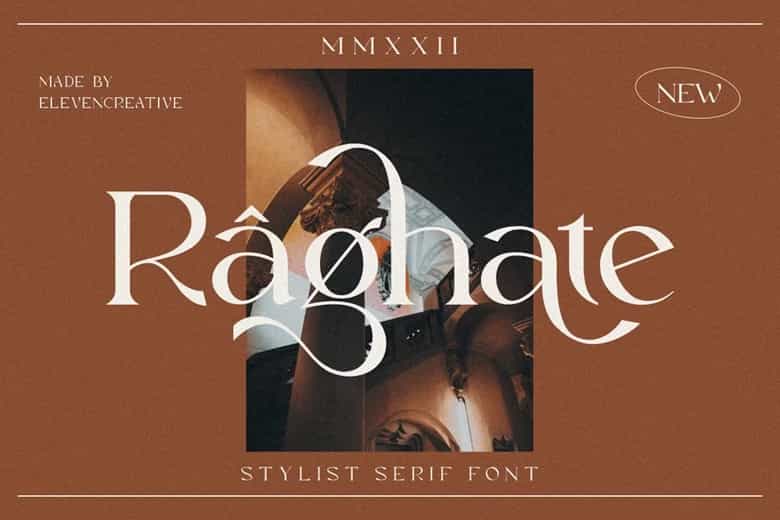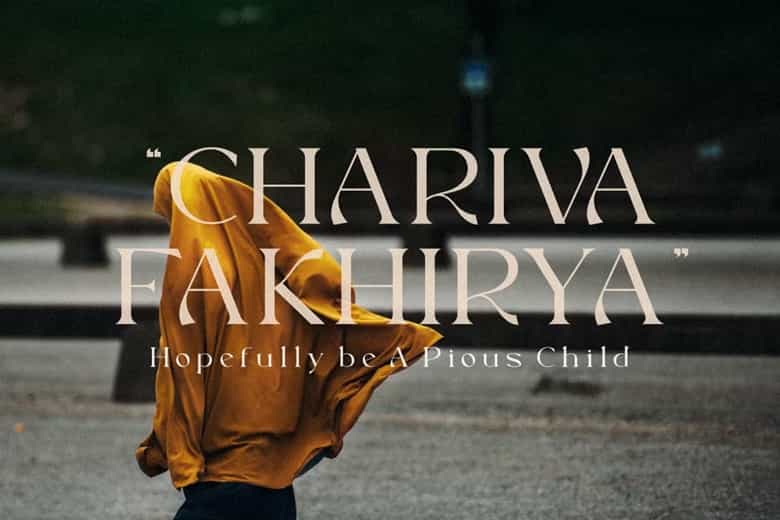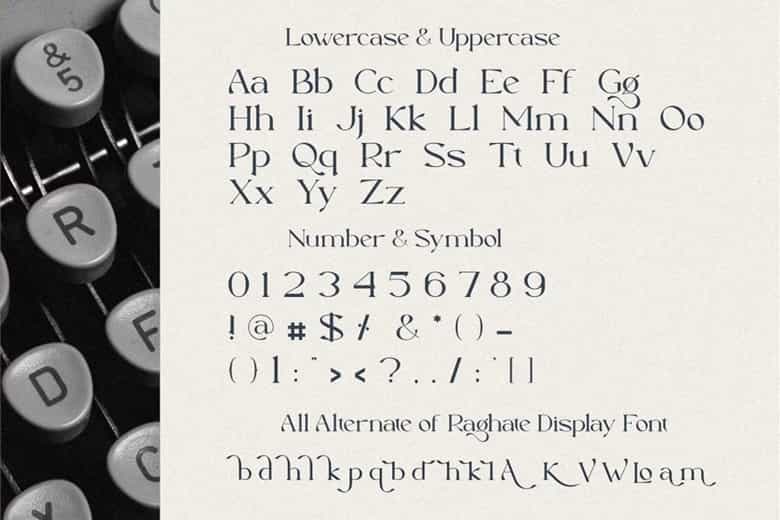
Discover Raghate Font, part of the Serif collection—a versatile and unique font perfect for adding a personal touch to your projects. Download it for free and enjoy crafting designs with style, from invitations to social media posts. This font is available exclusively for personal use, giving you the freedom to create without limits. Unlock your creativity with Raghate Font today!
Raghate is a stylist serif font. Ideal for elegant logos and titles, Raghate can be combined with most of the fonts and is suitable for any layout you are creating. Having all necessary symbols, including the Alternate, swash & stylistic set, Type involving Punctuation and numerals. An broader version of the font for a Portent different feel.